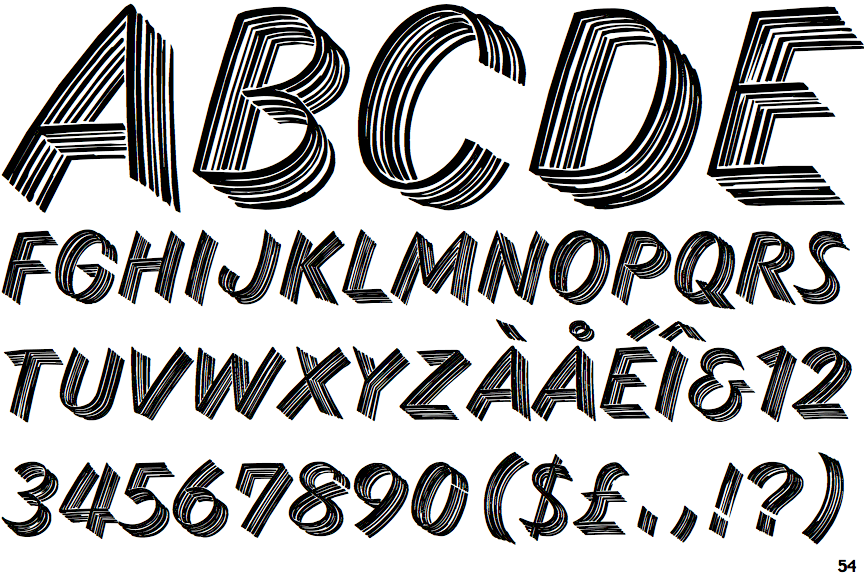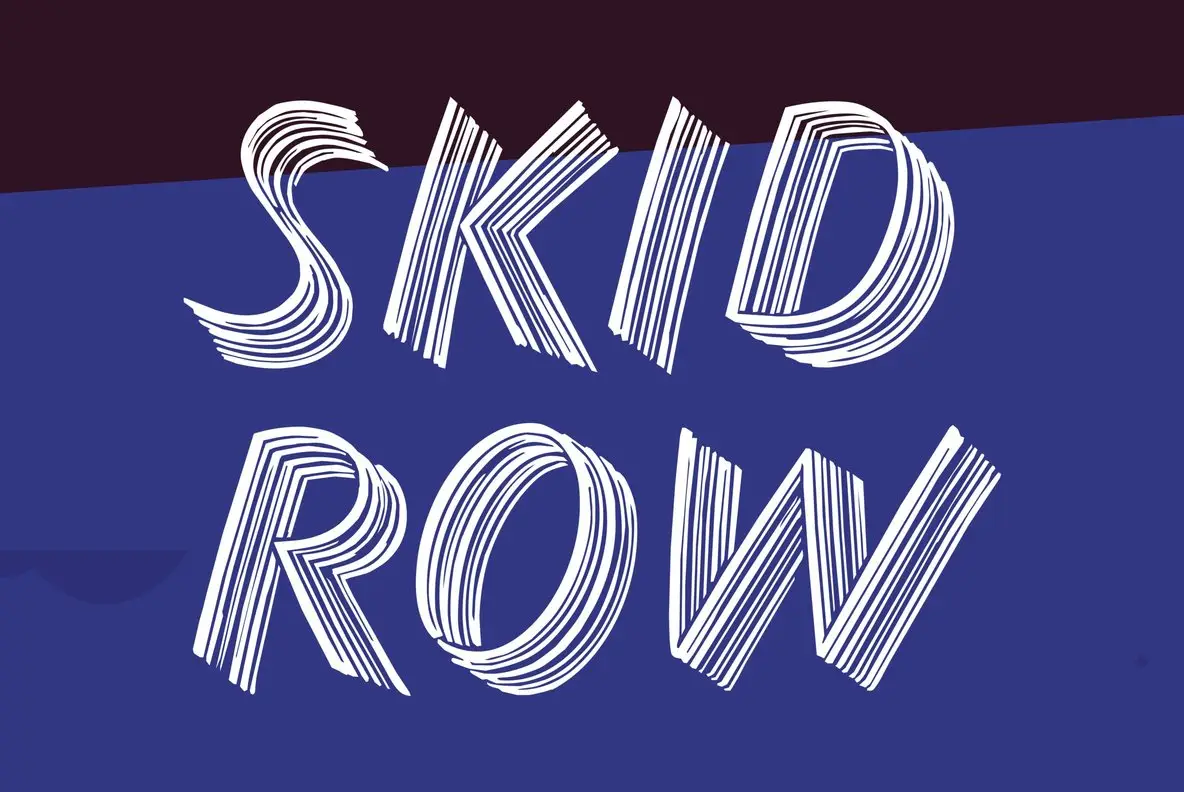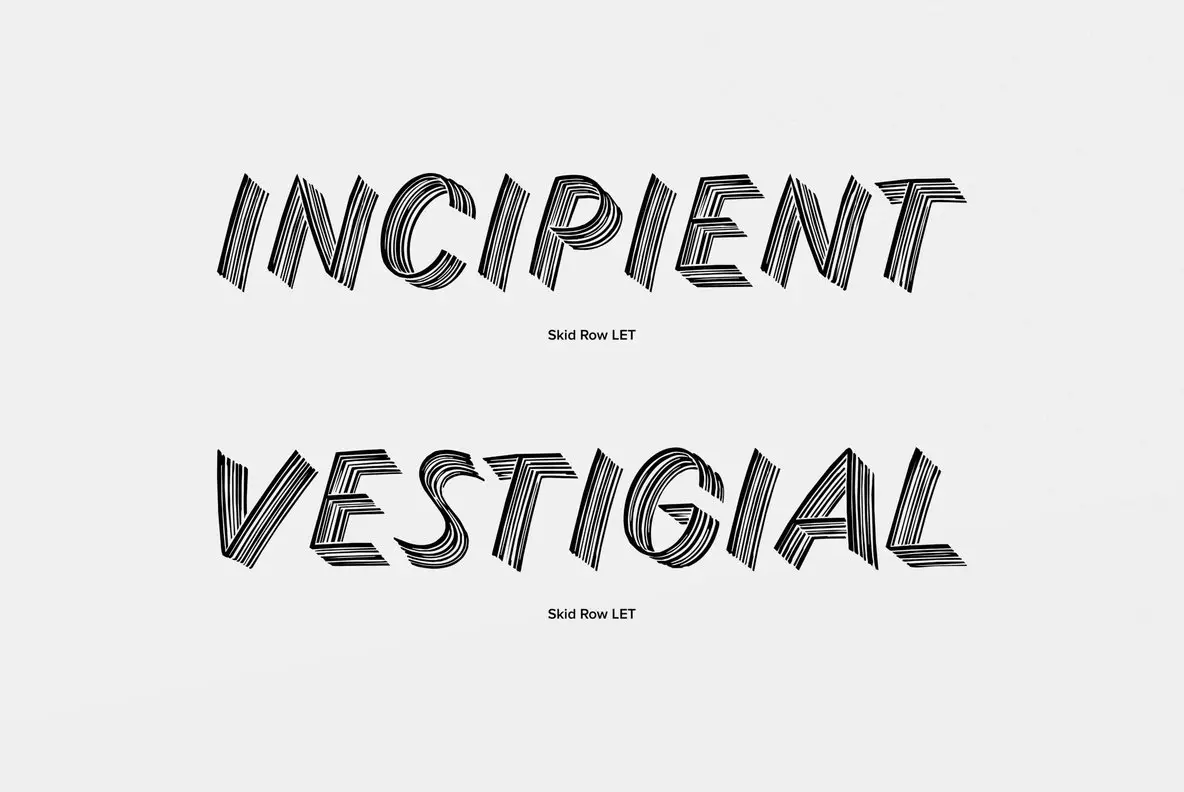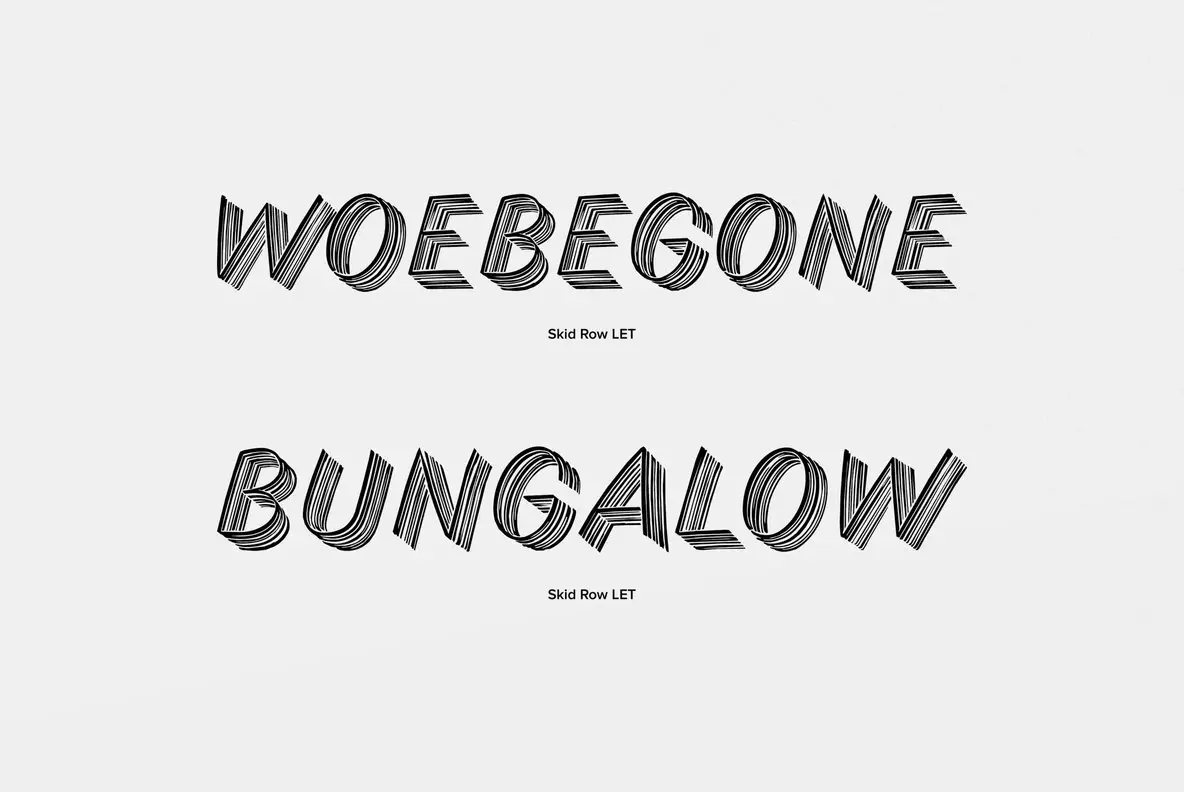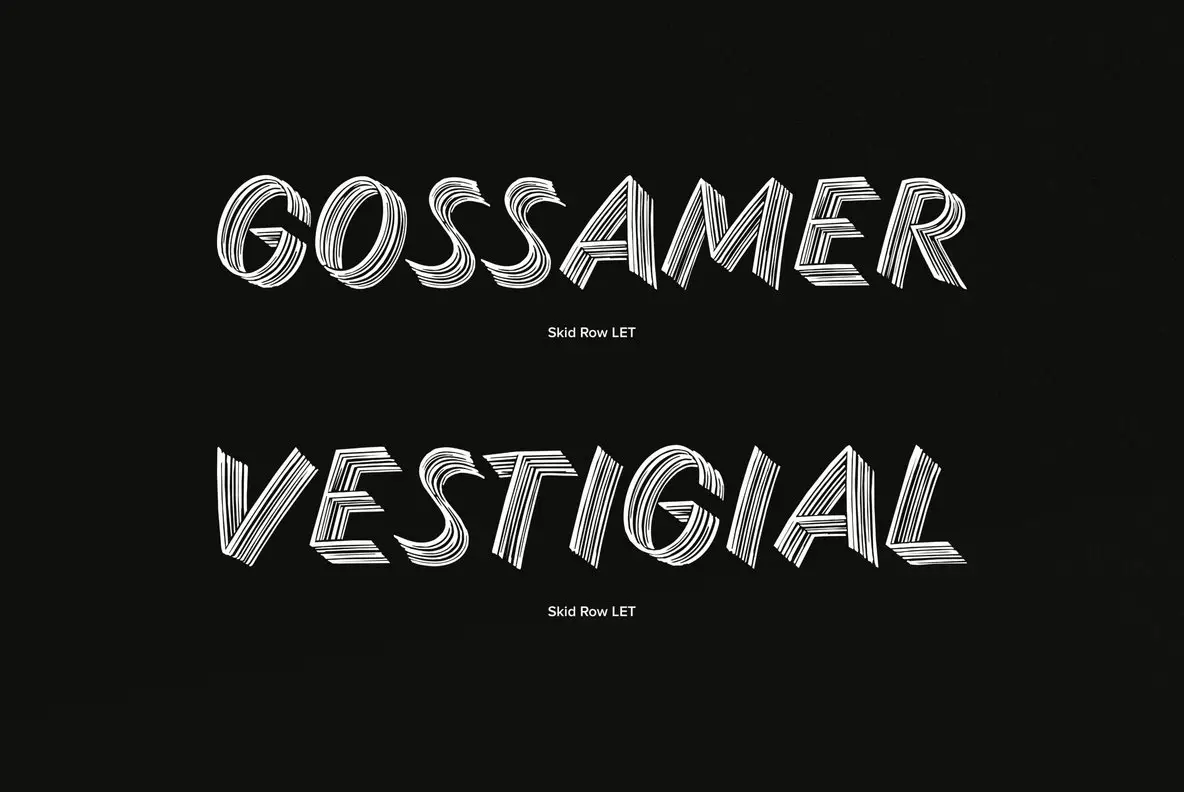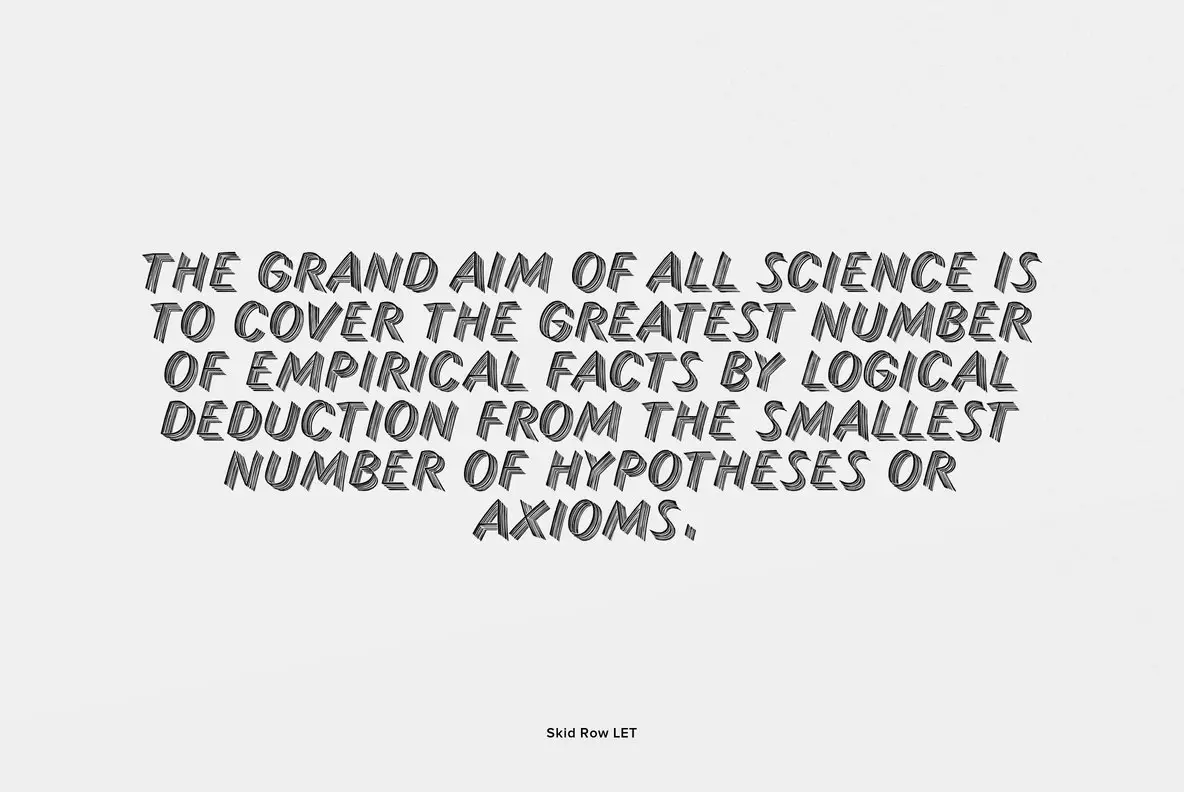
Skid Row Font . An independent archive of typography. 100 free fonts alternatives to skid row™ Skid row™ is available in opentype for. Browse by alphabetical listing, by style, by author or by popularity. — archive of freely downloadable fonts. skid row is the work of japanese designer akira kobayashi and named after a song from his favorite film, little shop of. skid row in use. Or combine terms with advanced. — download skid row™ font. — archive of freely downloadable fonts. what fonts are similar to skid row™? below is a collection of band fonts, which are identical or similar to the fonts used in the logos of popular bands. Browse by alphabetical listing, by style, by author or by popularity. This informal new brush script typeface was designed by talented japanese.
An independent archive of typography. skid row in use. Browse by alphabetical listing, by style, by author or by popularity. — archive of freely downloadable fonts. skid row is the work of japanese designer akira kobayashi and named after a song from his favorite film, little shop of. Browse by alphabetical listing, by style, by author or by popularity. 100 free fonts alternatives to skid row™ — download skid row™ font. — archive of freely downloadable fonts. Or combine terms with advanced.
Skid Row Skid row, Hand drawn typeface, Fonts alphabet
Skid Row Font 100 free fonts alternatives to skid row™ Browse by alphabetical listing, by style, by author or by popularity. — archive of freely downloadable fonts. — archive of freely downloadable fonts. skid row is the work of japanese designer akira kobayashi and named after a song from his favorite film, little shop of. 100 free fonts alternatives to skid row™ — download skid row™ font. Skid row™ is available in opentype for. skid row in use. Browse by alphabetical listing, by style, by author or by popularity. below is a collection of band fonts, which are identical or similar to the fonts used in the logos of popular bands. what fonts are similar to skid row™? An independent archive of typography. This informal new brush script typeface was designed by talented japanese. Or combine terms with advanced.
Skid Row Font FontPath Skid Row Font skid row is the work of japanese designer akira kobayashi and named after a song from his favorite film, little shop of. An independent archive of typography. This informal new brush script typeface was designed by talented japanese. Skid row™ is available in opentype for. — download skid row™ font. Browse by alphabetical listing, by style, by author. Skid Row Font.
Skid Font Download Skid Row Font Browse by alphabetical listing, by style, by author or by popularity. skid row in use. An independent archive of typography. This informal new brush script typeface was designed by talented japanese. — archive of freely downloadable fonts. Or combine terms with advanced. — archive of freely downloadable fonts. Skid row™ is available in opentype for. below. Skid Row Font.
SKID ROW self titled Debut album released on January 24, 1989 Rock Skid Row Font Or combine terms with advanced. below is a collection of band fonts, which are identical or similar to the fonts used in the logos of popular bands. Browse by alphabetical listing, by style, by author or by popularity. Browse by alphabetical listing, by style, by author or by popularity. — archive of freely downloadable fonts. skid row. Skid Row Font.
Skid Row Font FontPath Skid Row Font An independent archive of typography. skid row in use. — archive of freely downloadable fonts. Browse by alphabetical listing, by style, by author or by popularity. what fonts are similar to skid row™? — download skid row™ font. Or combine terms with advanced. This informal new brush script typeface was designed by talented japanese. skid. Skid Row Font.